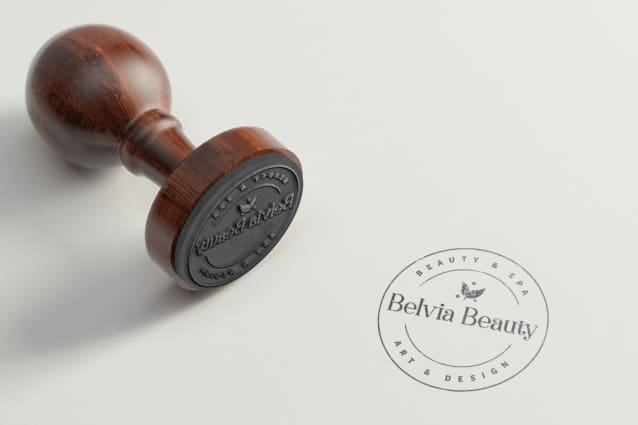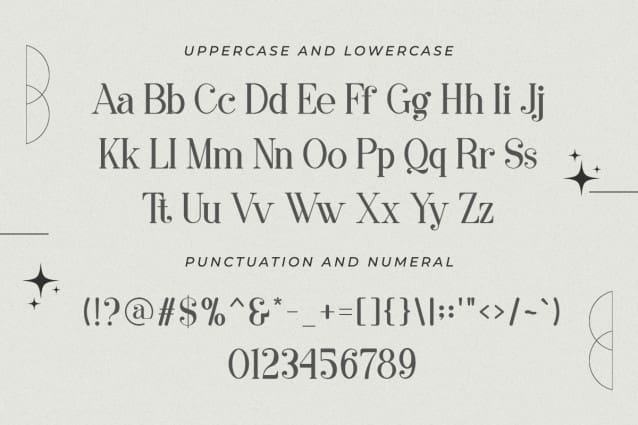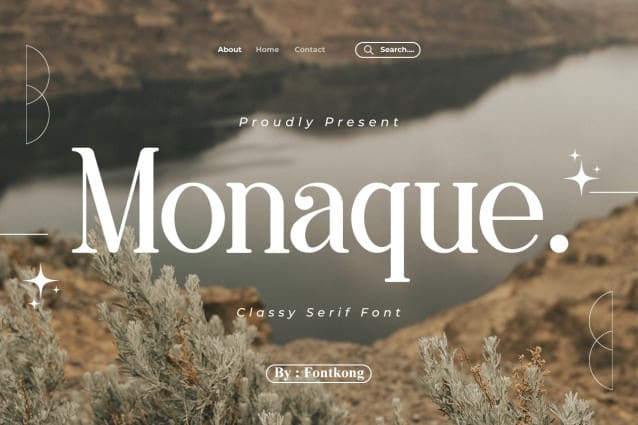
Monaque Font
Monaque Font – Modern Classy Serif Font is one of the fonts with a classic and modern font impression. This impression is what makes this font different from other serif fonts.  Monaque Font – Modern Classy Serif Font has a simple shape and a thin serif at the end. It has curved lines that extend beyond the boundaries of the letters. This makes the appearance of this font look classic and elegant.
The characters described above make  Monaque Font – Modern Classy Serif Font one of the best fonts that have high compatibility when used as a wedding font.  Monaque Font – Modern Classy Serif Font can be used on wedding invitation cards, posters, and souvenirs. The font can be used as a digital font and printed in the appropriate font size cause supported by a legible font type.
Apart from being a wedding font, the  Monaque Font – Modern Classy Serif Font is also the best font for branding beauty products. It can be used on packaging as well as a commercial on websites and display posters. This font also has high compatibility when used for social media, both for posting feeds and Instagram stories.